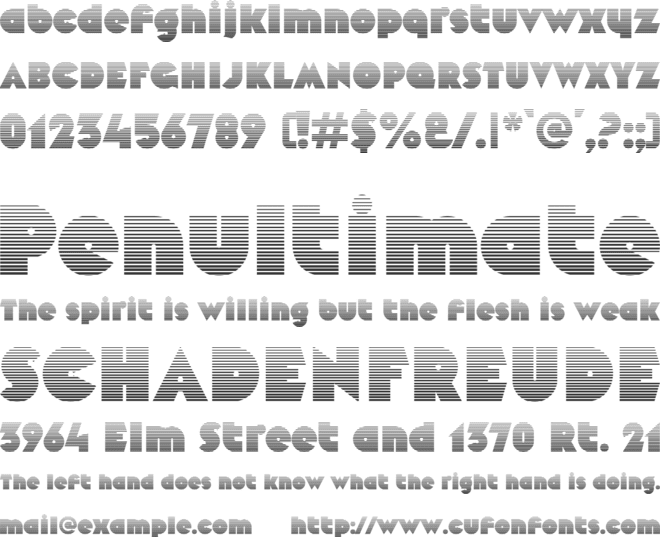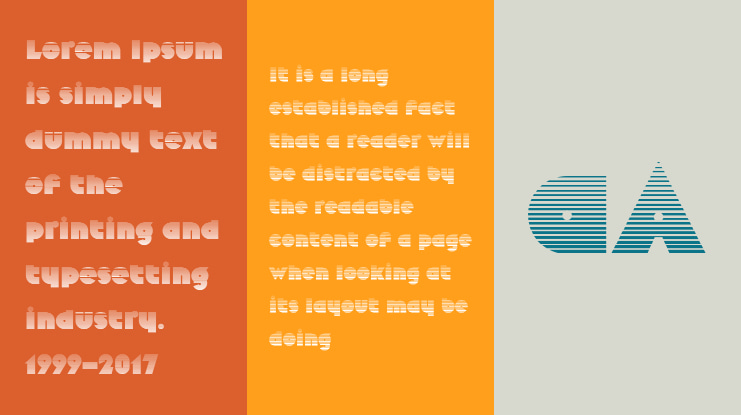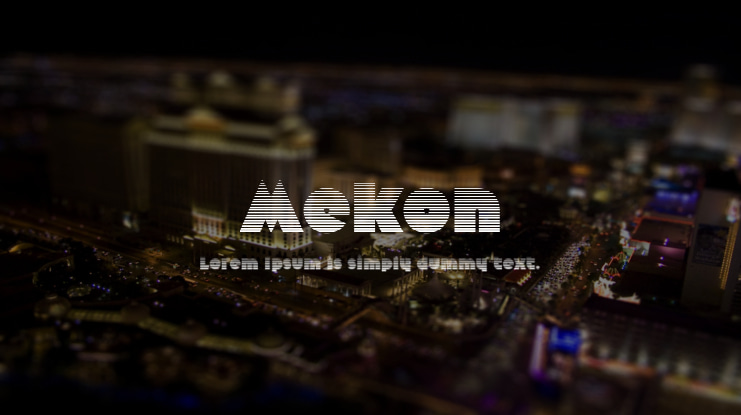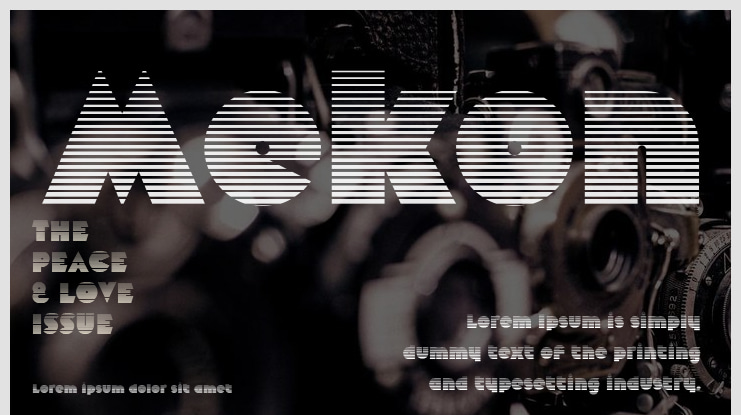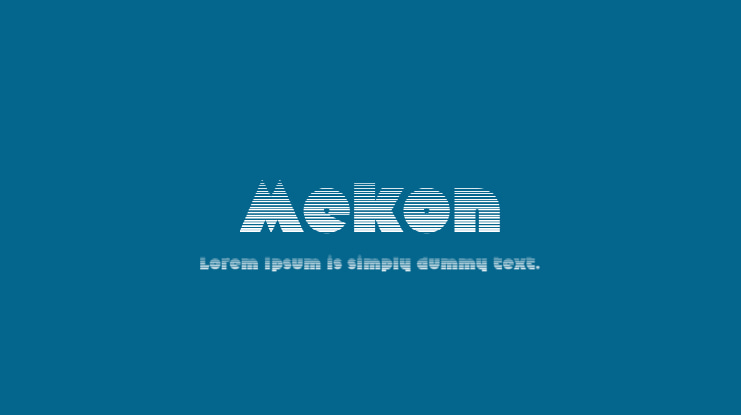
Mekon Font
Jonathan Hill
Mekon is a contemporary heavyweight typeface, digitized and expanded from Peter Steiner's Black Body (1973). This retro-style font blends Pac-Man shapes with small keyhole counters, creating a bold and witty design perfect for apparel, books, t-shirts, and posters. Mekon is now available as version 2.0 (2021); this remastered edition meets the higher technical standards that modern-day users demand.